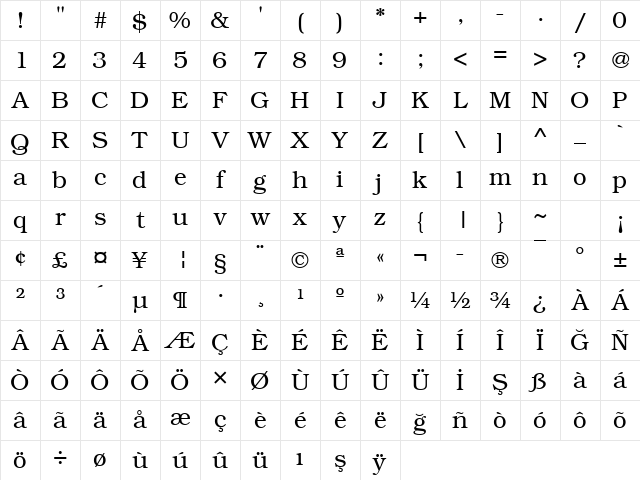
BookmanItcLTU Regular
BookmanItcLTU Family
Design Context for BookmanItcLTU
BookmanItcLTU is a composed and adaptable typeface that performs quietly and consistently across a wide range of design contexts.